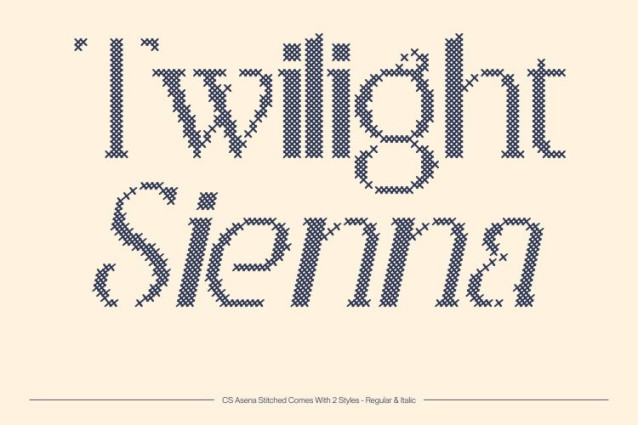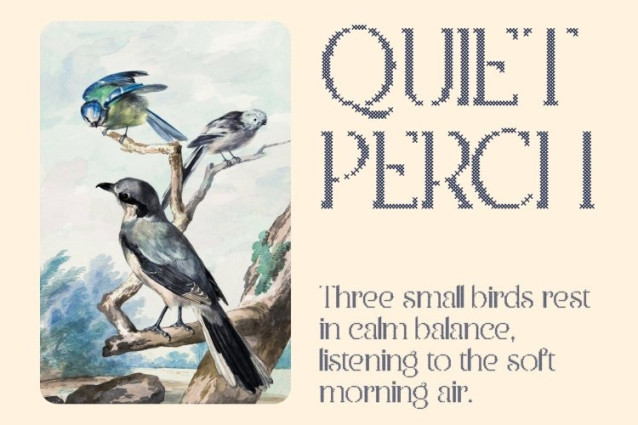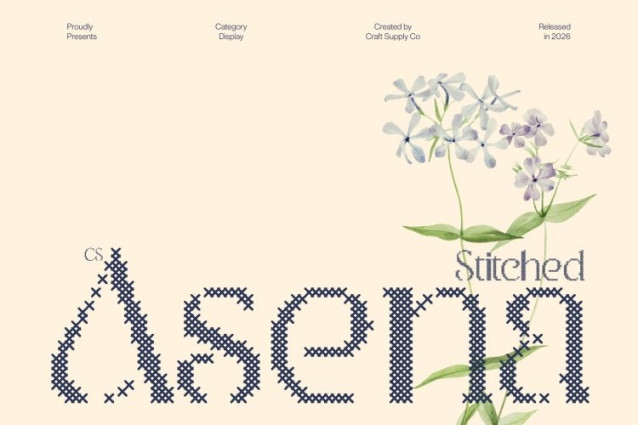
CS Asena Stitched Font
CS Asena Stitched Font is an elegant serif font designed to deliver a refined, high-end appearance infused with artistic sophistication. Its graceful curves and carefully sculpted letterforms create a luxurious visual tone that feels timeless yet expressive. Enhanced with a stitched style inspired by thread sewn or embroidered on fabric, this version introduces a subtle handcrafted texture that enriches the elegant structure with warmth and distinctive character.
Refined Curves with Embossed Stitch Texture
Inspired by the organic flow of Art Nouveau, this font features soft, fluid curves and harmonious proportions that echo natural forms and decorative artistry. A distinctive cross-shaped stitch pattern overlays each letterform, creating an embossed and fabric-like texture that enhances depth and visual interest.
Classic Elegance with Contemporary Refinement
This font seamlessly bridges classic serif tradition with modern design sensibility. Its elegant serifs and graceful contours provide timeless sophistication, while contemporary proportions ensure clarity and versatility across modern layouts.
Perfect for Editorial, Fashion, and Premium Branding
Ideal for advanced book design, editorial layouts, packaging, fashion visuals, luxury branding, and elegant promotional materials, this font enhances both headlines and body text with refined beauty. Its fusion of Art Nouveau-inspired elegance and stitched detailing creates a distinctive typographic presence that communicates sophistication, creativity, and timeless style.